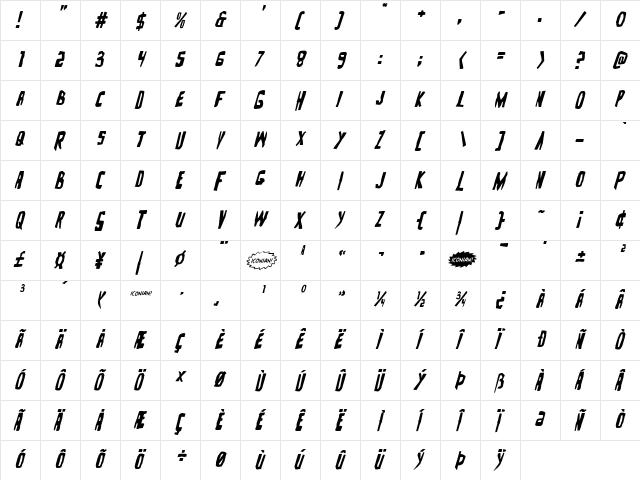
Zakenstein Italic Italic
Design Context for Zakenstein Italic Typeface
Zakenstein Italic is a composed and adaptable typeface that performs quietly and consistently across a wide range of design contexts. Its italic angle brings a sense of urgency and motion to the letterforms.
Pro Tip: Try Zakenstein Italic for annotation and caption copy alongside an upright companion — the contrast in angle creates a dynamic but ordered typographic system.